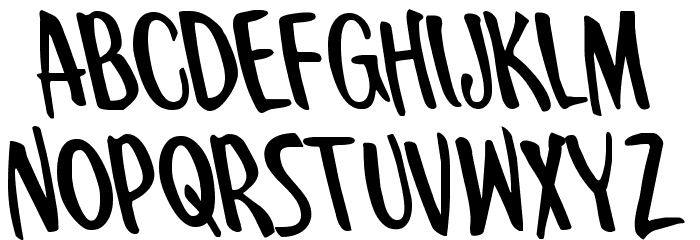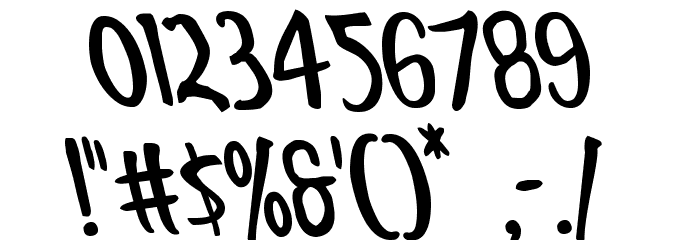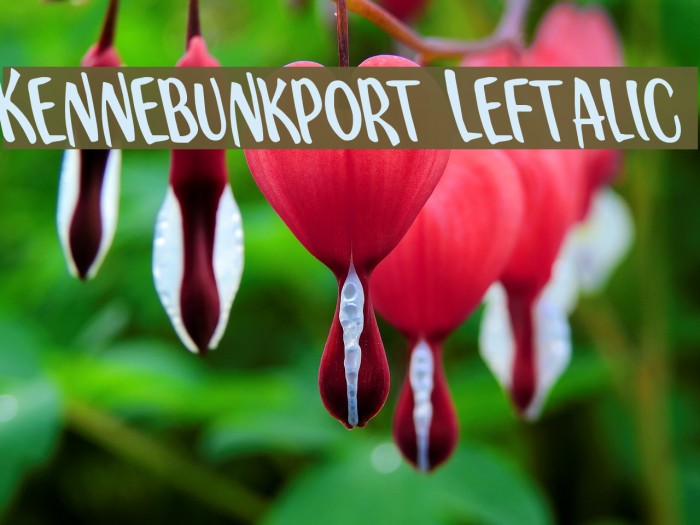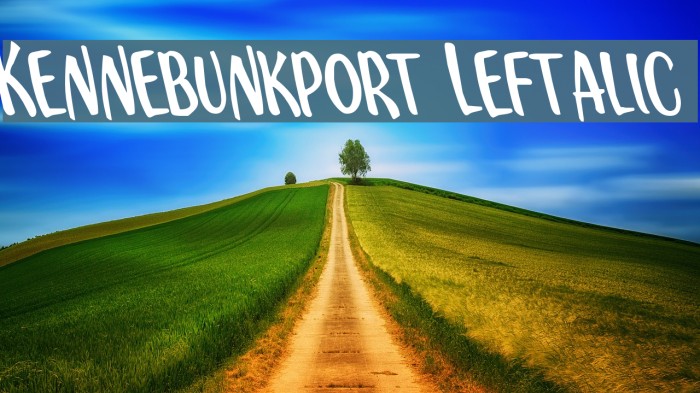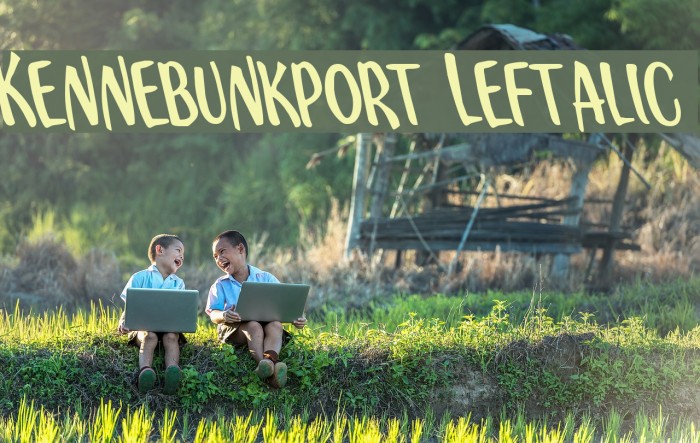
Kennebunkport Leftalic Font
This font features a playful and energetic style with a hand-drawn appearance. The letters are slightly slanted, giving a dynamic and informal feel. The strokes are bold and uneven, adding to the casual and whimsical nature of the font. It includes both uppercase and lowercase letters, numbers, and a variety of special characters. The overall design is reminiscent of handwritten text, making it suitable for projects that require a personal touch.
A playful, hand-drawn font with bold, uneven strokes and a dynamic slant.
- Proposed Projects: Ideal for children's books, greeting cards, posters, and any project needing a fun, informal touch.